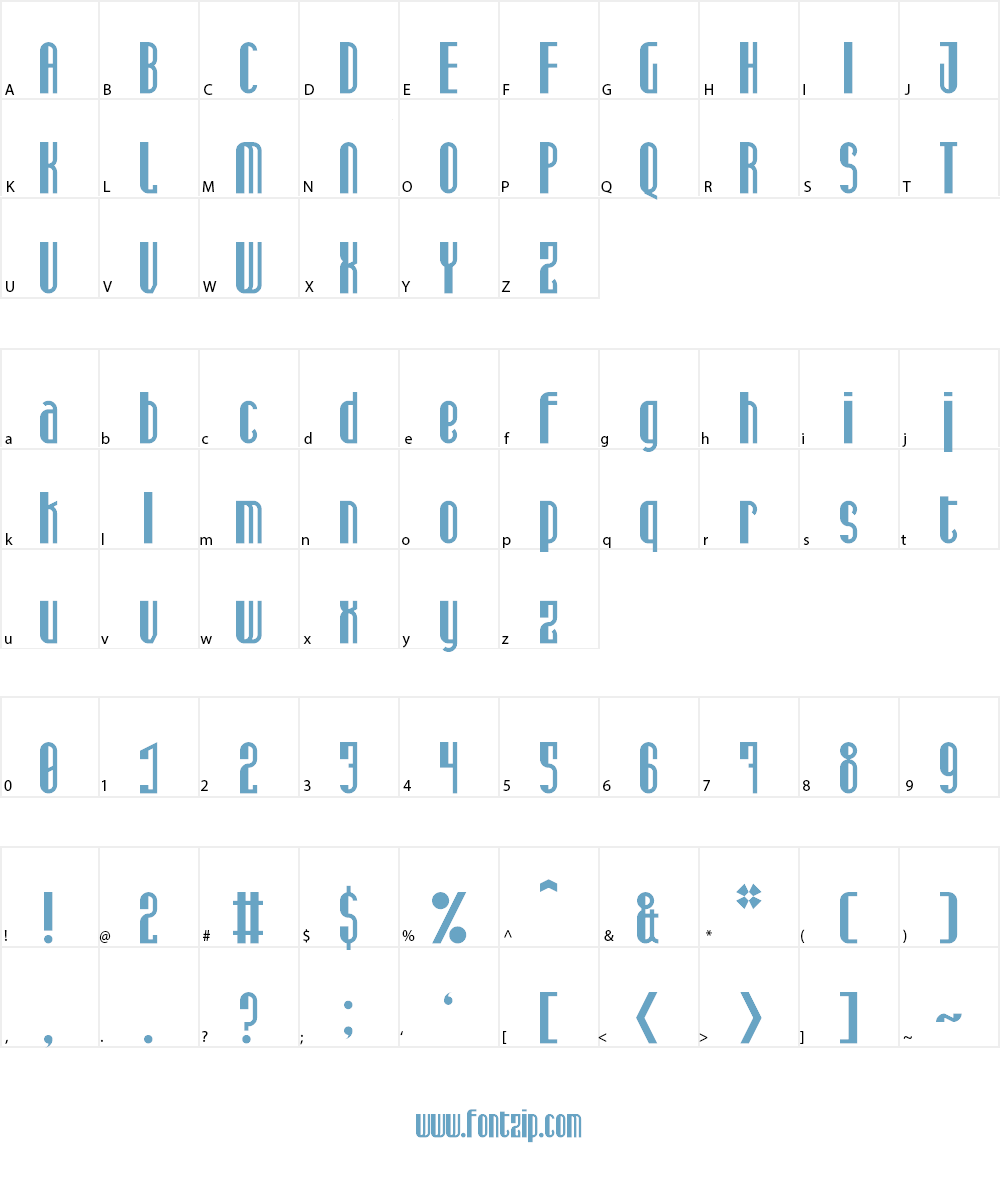
An experimental and narrow art deco design.
Supports Danish, Dutch, English, Finnish, French, German, Hungarian, Icelandic, Italian, Norwegian, Polish, Portuguese, Spanish, and Swedish!